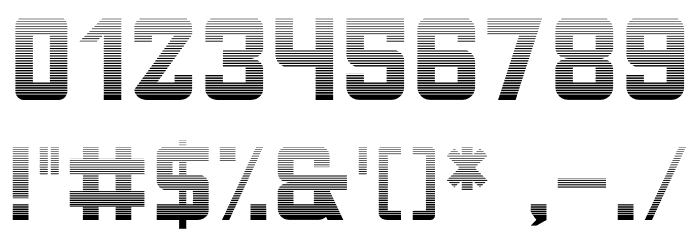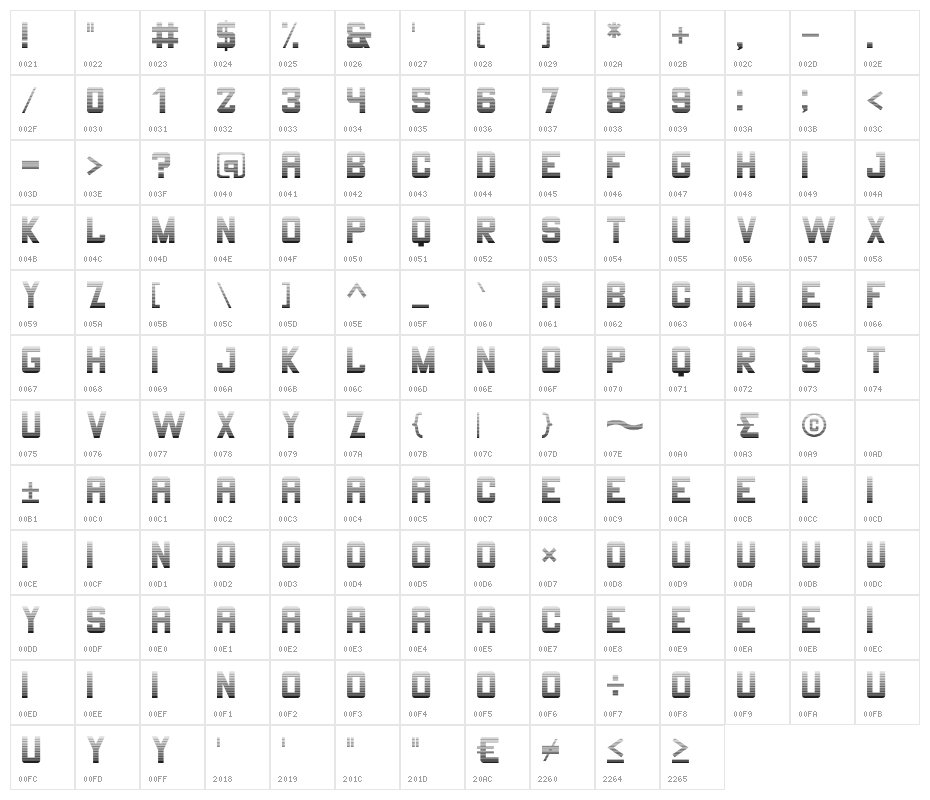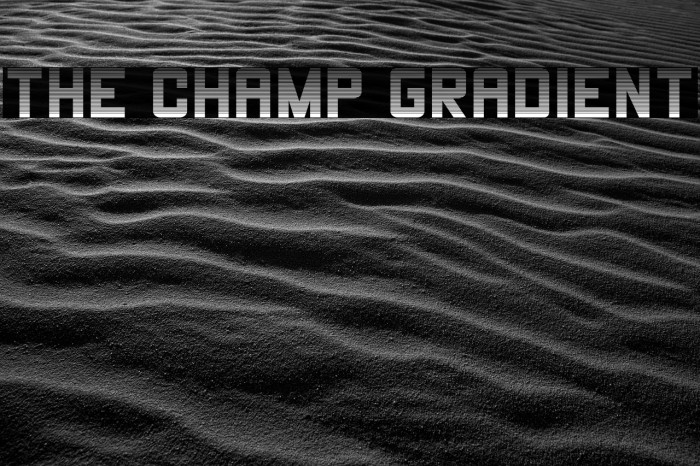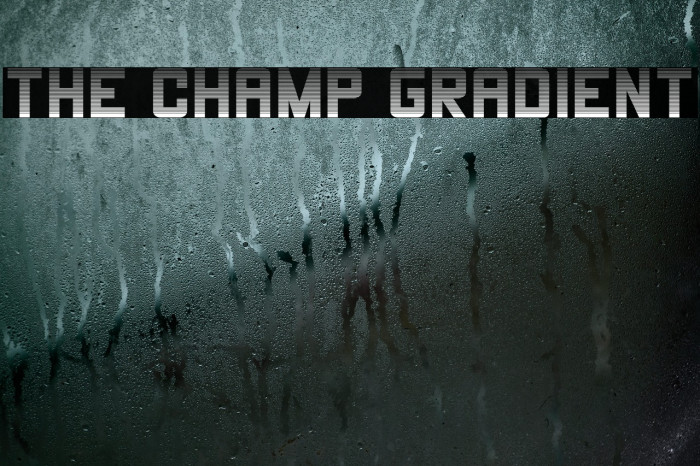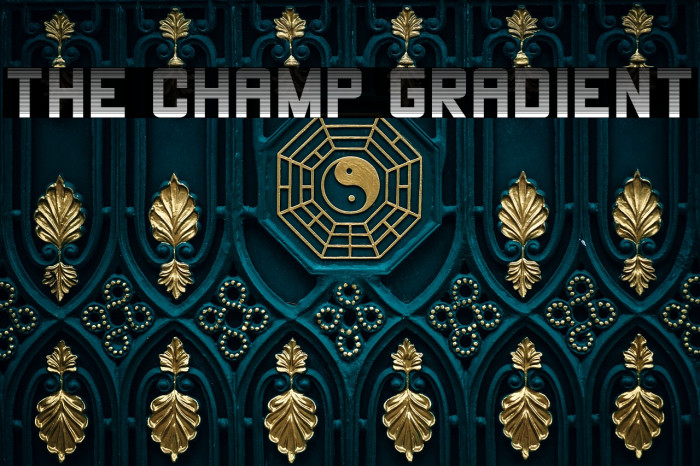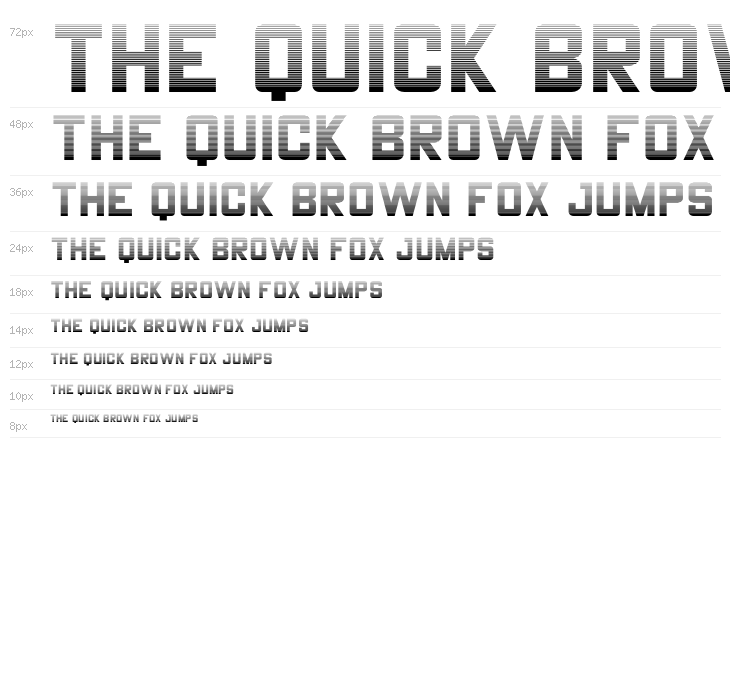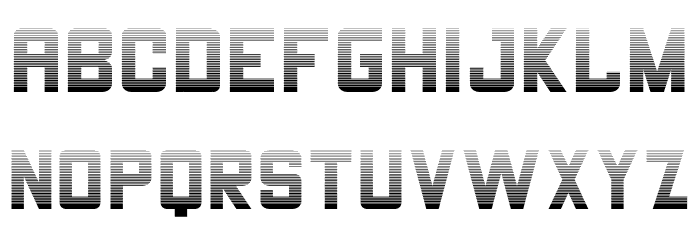
THE CHAMP Gradient Font
THE CHAMP Gradient Description
This font features a bold, modern design with a unique gradient effect that gives each character a sense of depth and dimension. The uppercase letters are strong and impactful, making them ideal for attention-grabbing headlines. The numbers and special characters maintain the same gradient style, ensuring consistency across all text elements. The font's design is both futuristic and industrial, with a clean, geometric structure that enhances readability while adding a distinctive visual flair.
| Proposed Projects | Ideal for sports branding, futuristic designs, posters, and digital media where a strong visual impact is needed. |